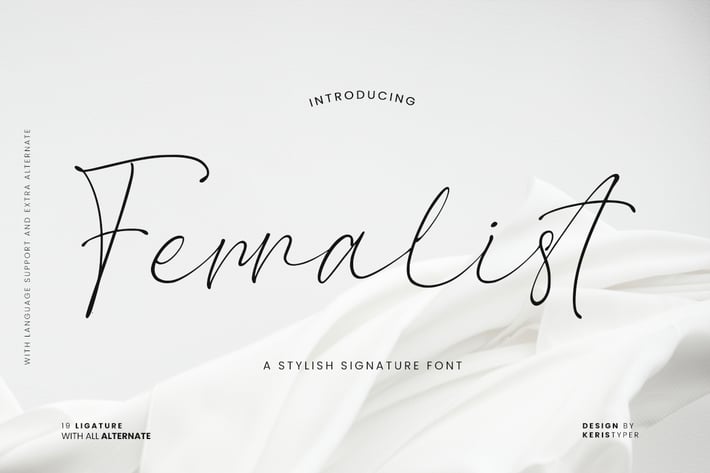
Ferralist Stylish Signature Font
Introducing Ferralist Signature Script which consists of a fashionable signature style script with its own unique curves and elegant ink flow. Ferralist Signature Script is perfect for branding projects, logos, wedding designs, social media posts, advertising, product packaging, product design, labels, photography, watermarks, invitations, stationery and any project that requires a handwritten feel.
Ferralist Handwriting Font multilingual support:
Afrikaans, Albanian, Catalan, Danish, Dutch, English, Estonian, French, Finnish, German, Icelandic, Indonesian, Italian, Malay, Norwegian, Portuguese, Spanish, Swedish, Zulu, and many more.